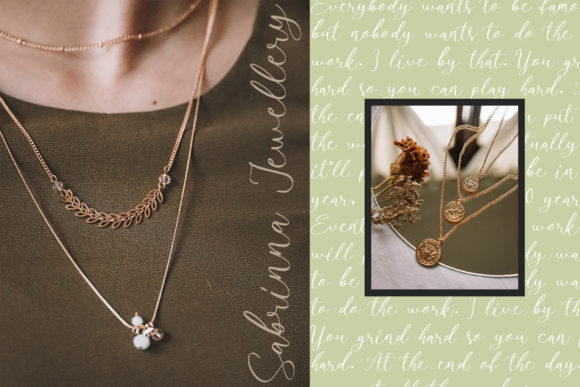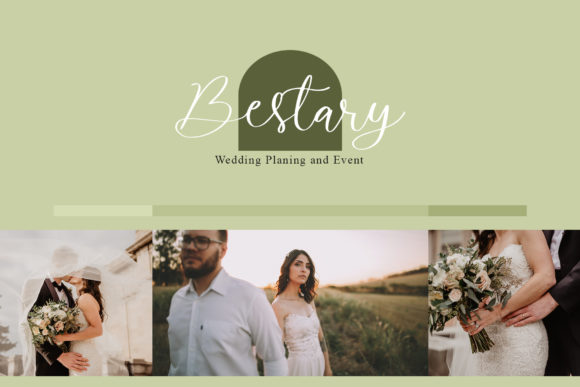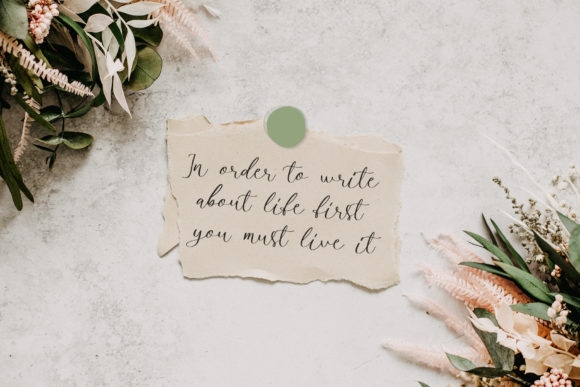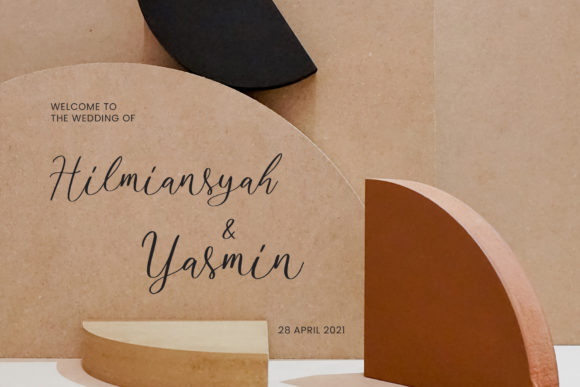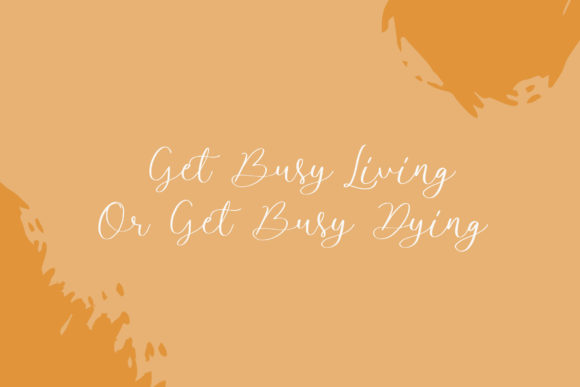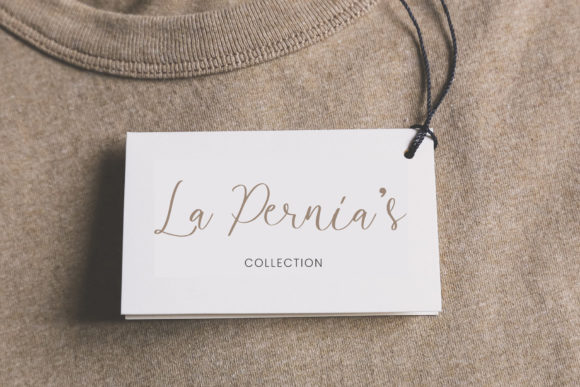
The Designer’s Delight: Unlocking the Beauty of Byefour Font
I’ll never forget the moment I stumbled upon Byefour Font while working on a project that required a touch of elegance and sophistication. I had been searching for the perfect font for hours, trying out different styles and samples, but nothing seemed to fit the bill. That was until I saw Byefour – a beautiful, slim handwritten font that instantly caught my eye. In this article, I’ll share my experience with Byefour, its features, and how to make the most of it in your designs.
Byefour Font has quickly become one of my go-to fonts for creative projects. Here’s what I love about it:
- ✨ Classy calligraphic influences: Byefour maintains a sense of sophistication and luxury, making it perfect for high-end designs.
- ✅ Contemporary and fresh feel: Despite its classic influences, Byefour feels modern and trendy, making it suitable for a wide range of design applications.
- 🌈 Versatility: Byefour works well in various design contexts, from branding and advertising to packaging and digital media.
While Byefour is an excellent font, it’s not without its quirks:
- 🤔 Limited use in body text: Due to its slim and elegant design, Byefour may not be the best choice for lengthy body text. It’s better suited for headings, titles, and short paragraphs.
- ⚠️ Some glyphs may require manual adjustment: Depending on the design, some glyphs may need manual adjustment to ensure proper spacing and alignment.
The Story Behind Byefour: Designer Inspiration
Byefour Font was created with the intention of crafting a beautiful, elegant script font that would evoke a sense of sophistication and luxury. The designer aimed to create a font that would feel both classic and modern, making it suitable for a wide range of design applications. While the actual designer’s story may be unknown, it’s clear that Byefour was created with a passion for typography and a desire to create something truly special.
| Font Name | Byefour Font |
| Author | craftsupplyco |
| What is Byefour Font best suited for? | Byefour Font is best suited for designs that require a touch of elegance and sophistication, such as luxury branding, advertising, packaging, and digital media. |
| Can I use Byefour for body text? | While Byefour can be used for body text, it’s not the most ideal choice due to its slim and elegant design. It’s better suited for headings, titles, and short paragraphs. |
| Does Byefour support OpenType features? | Yes, Byefour supports OpenType features, such as stylistic alternates and glyphs, which can be accessed in compatible design software. |
| Is Byefour a versatile font? | Yes, Byefour is a versatile font that works well in various design contexts, making it a great addition to any designer’s font library. |